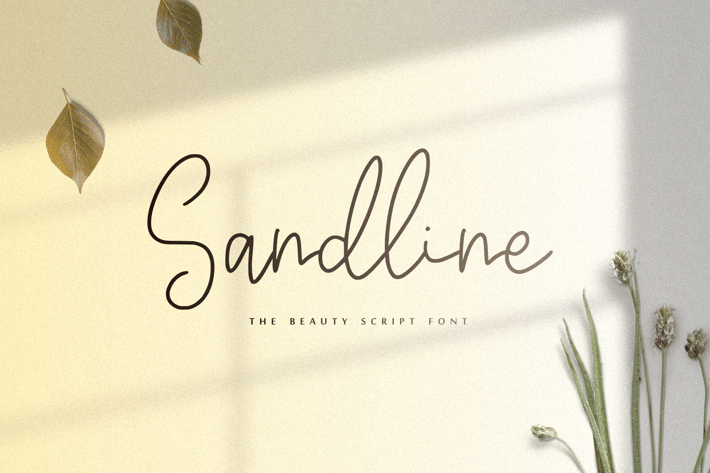
Sandline - The Beauty Script Font
Sandline - The Beauty Script Font, every single letter has been carefully crafted to make your text looks beautiful. it's perfect for logos, name cards, magazine layouts, invitations, headers, or even large-scale artwork.
- Sandline font including upper & lowercase characters, numerals and more of symbols.